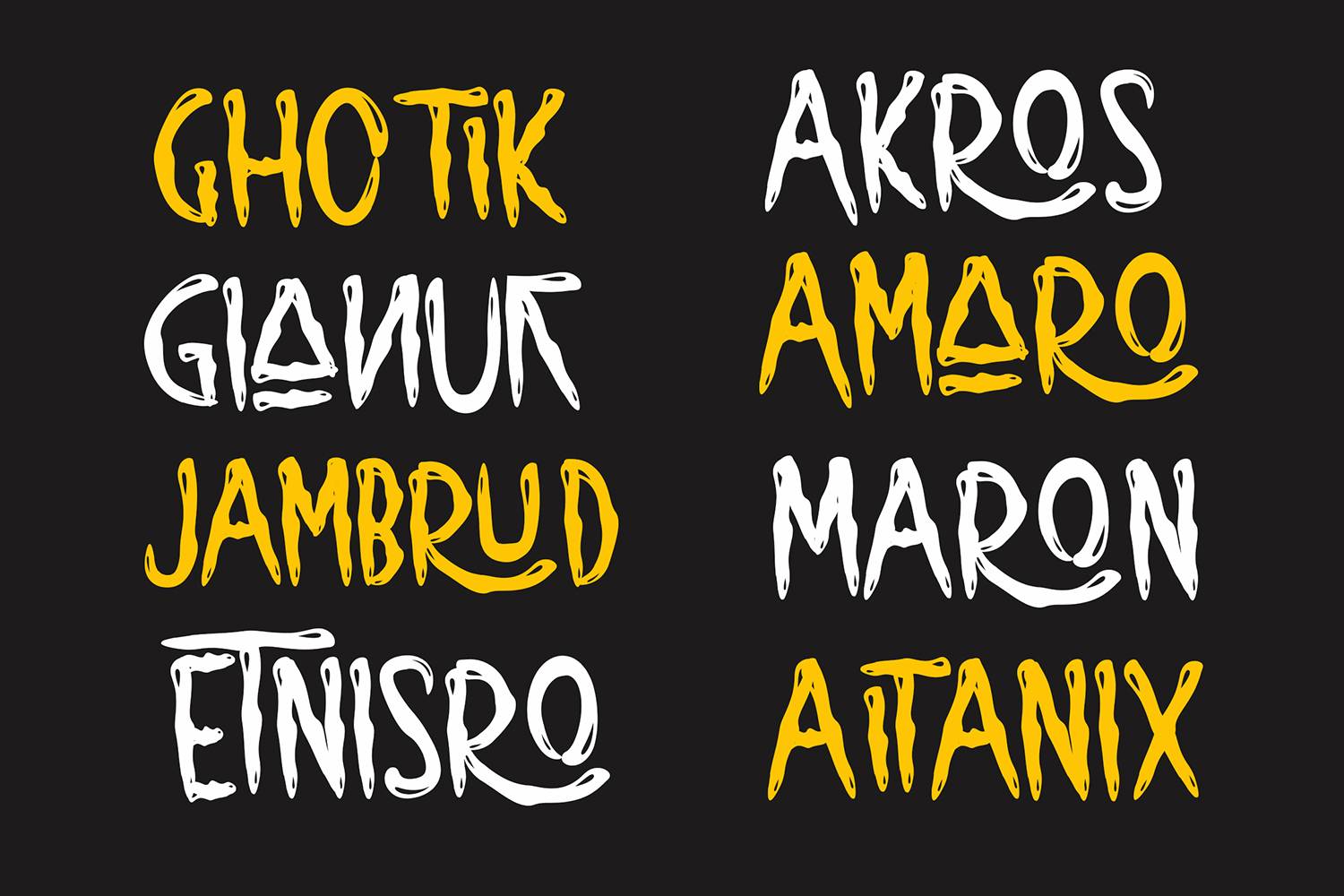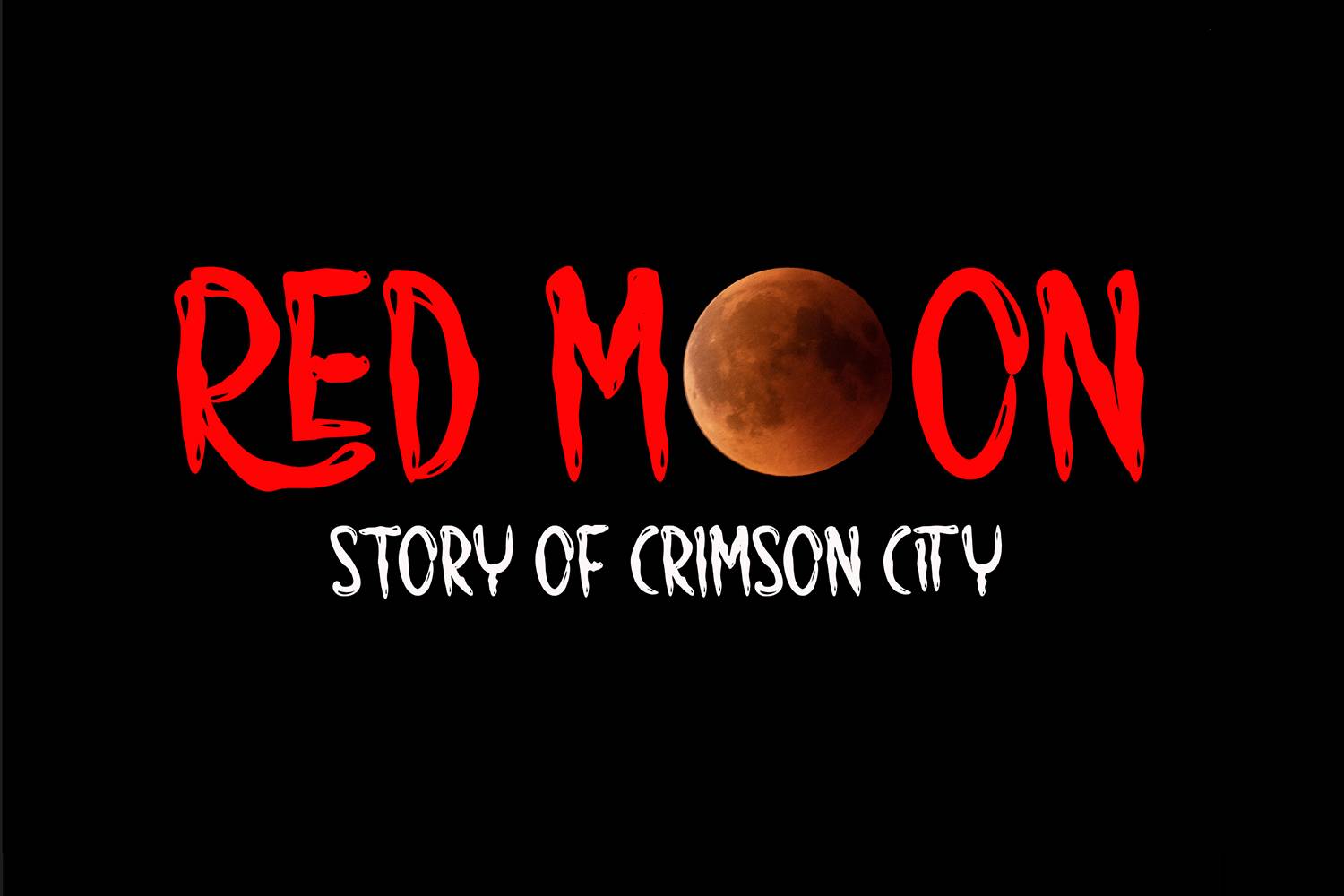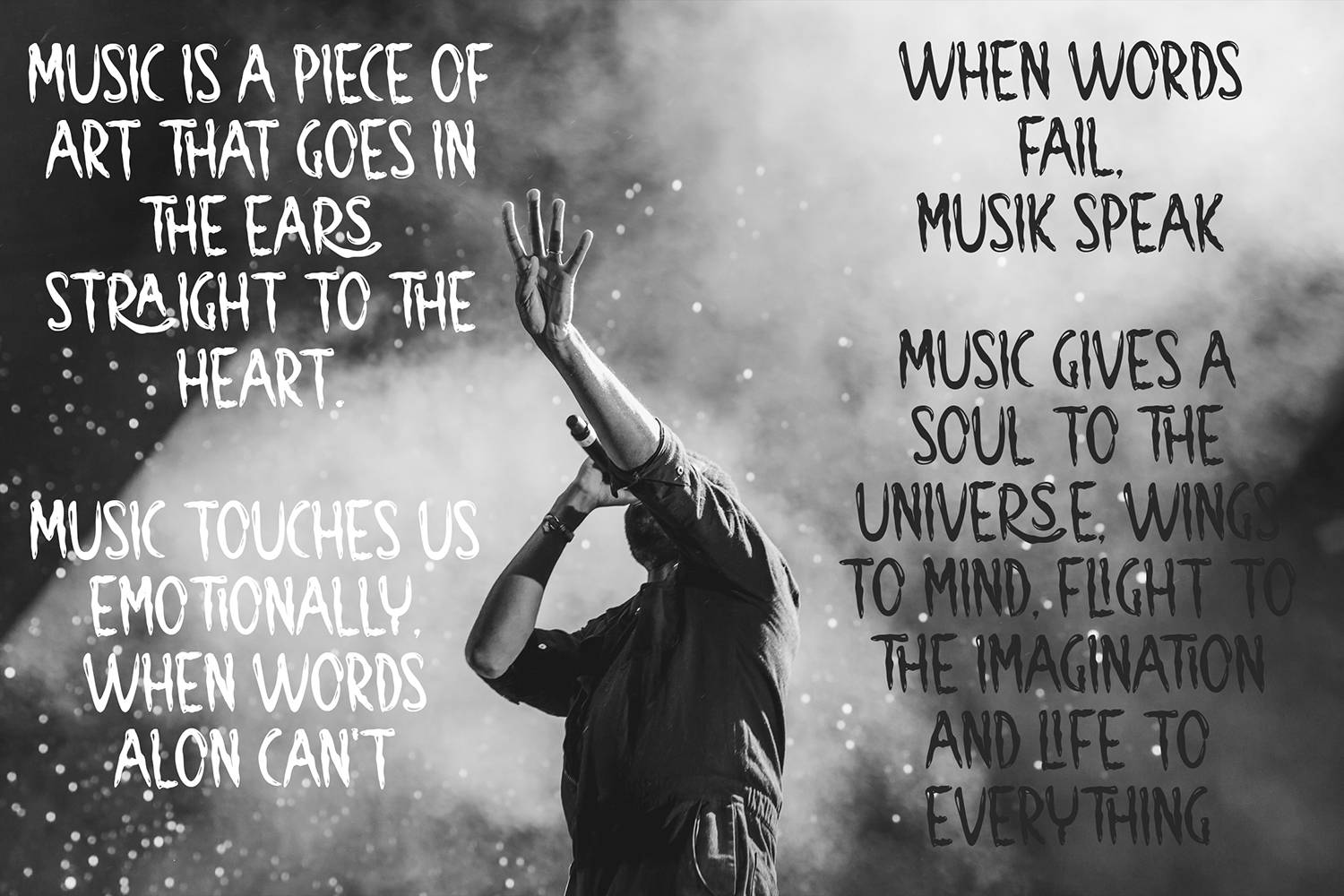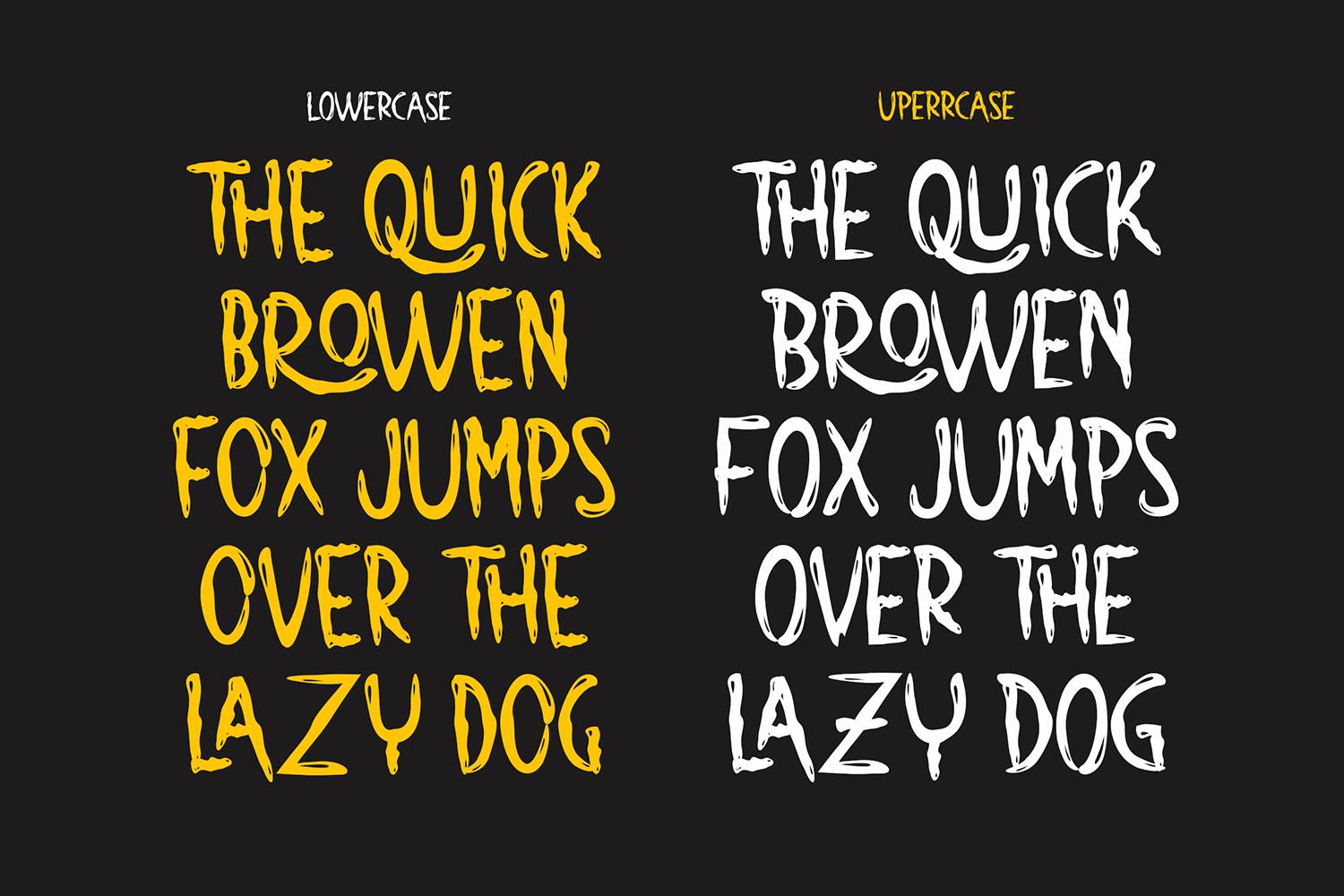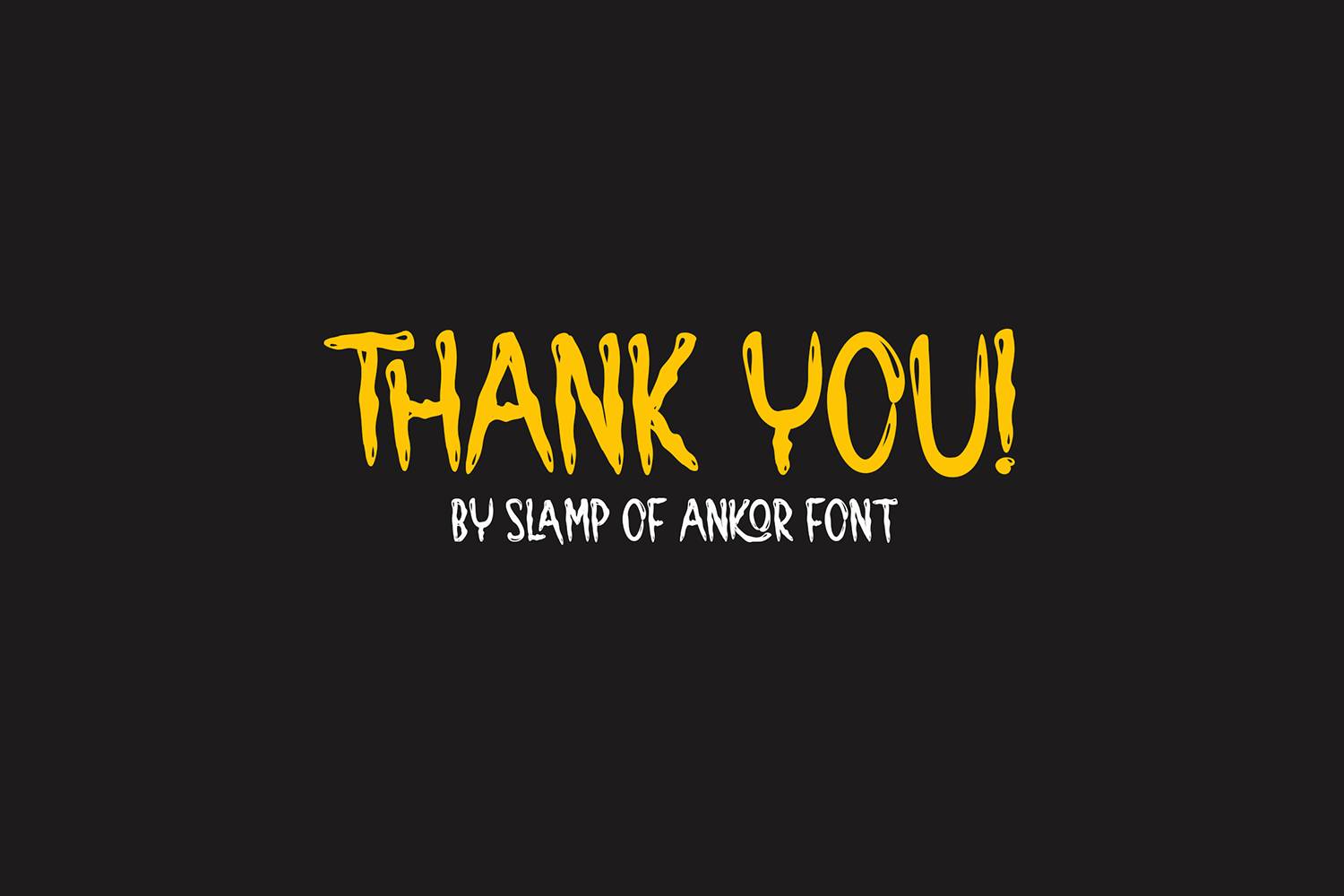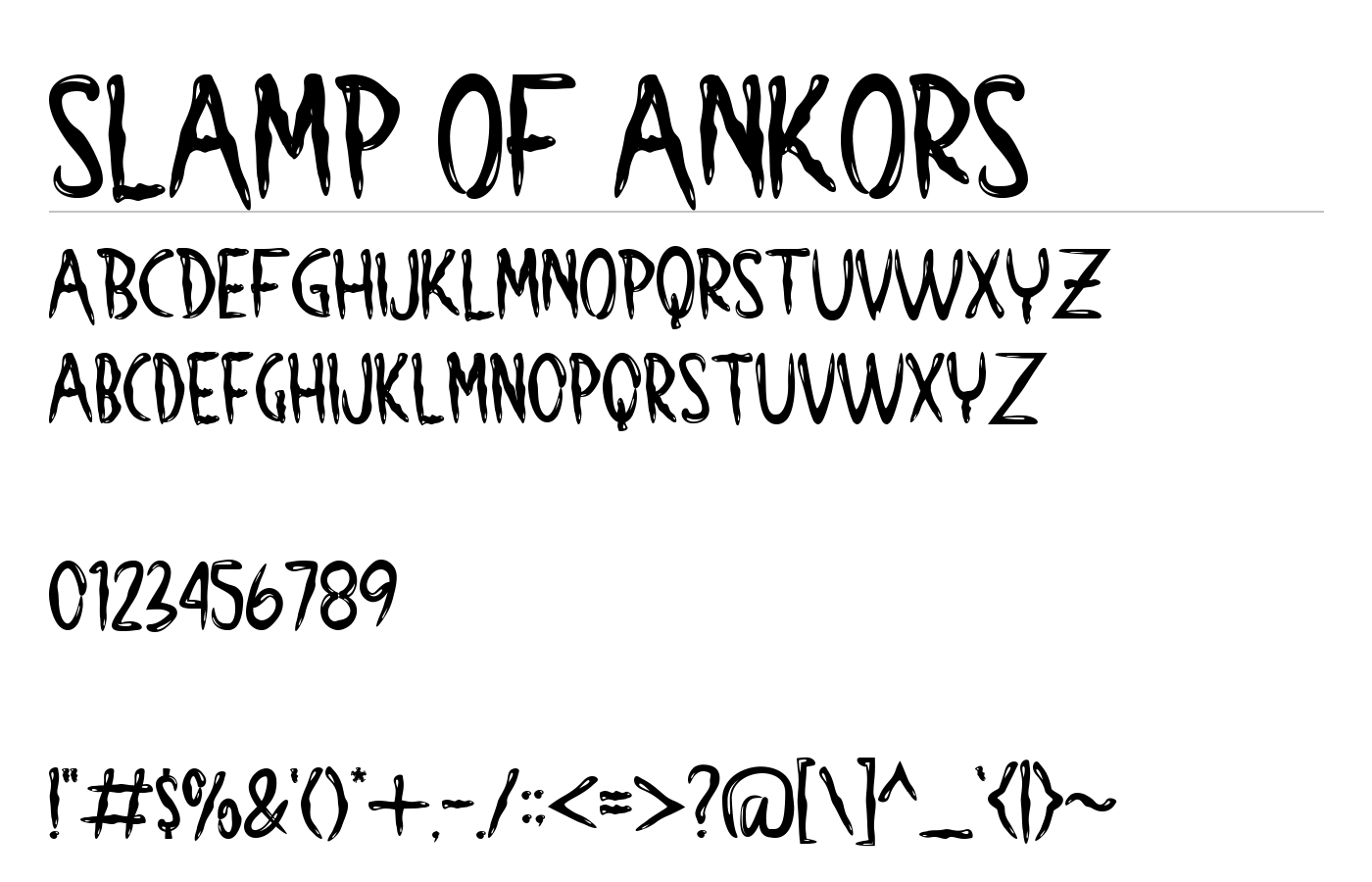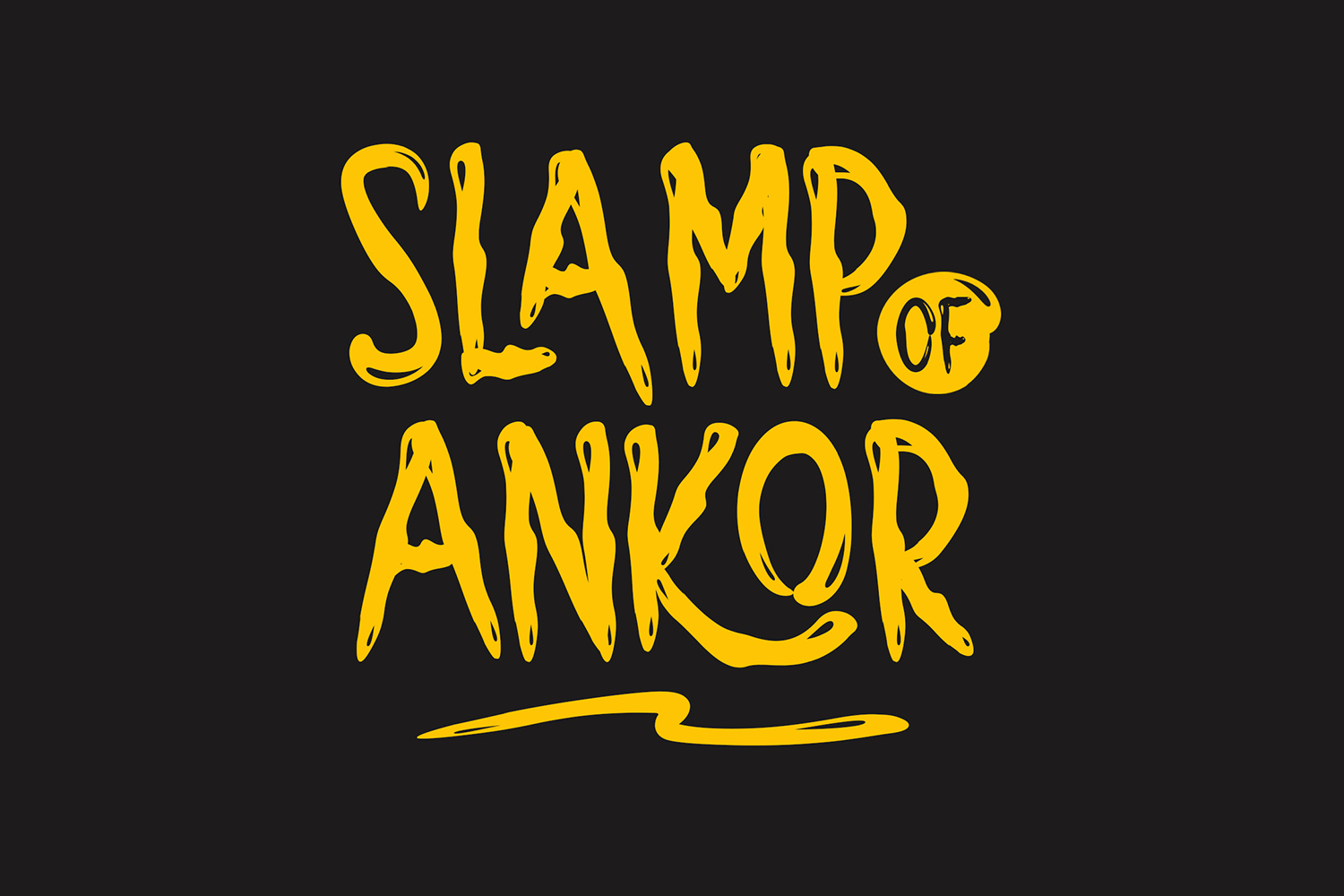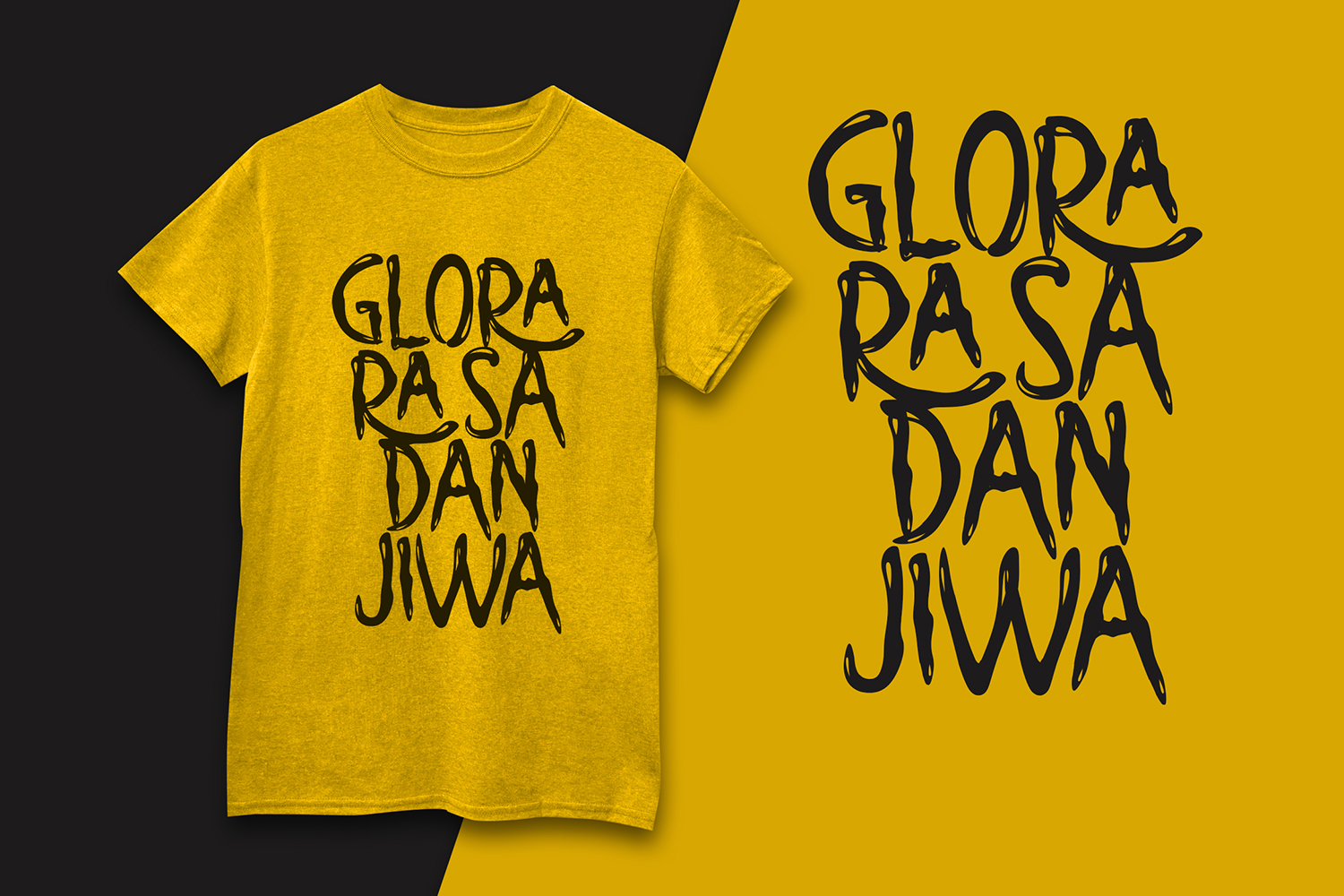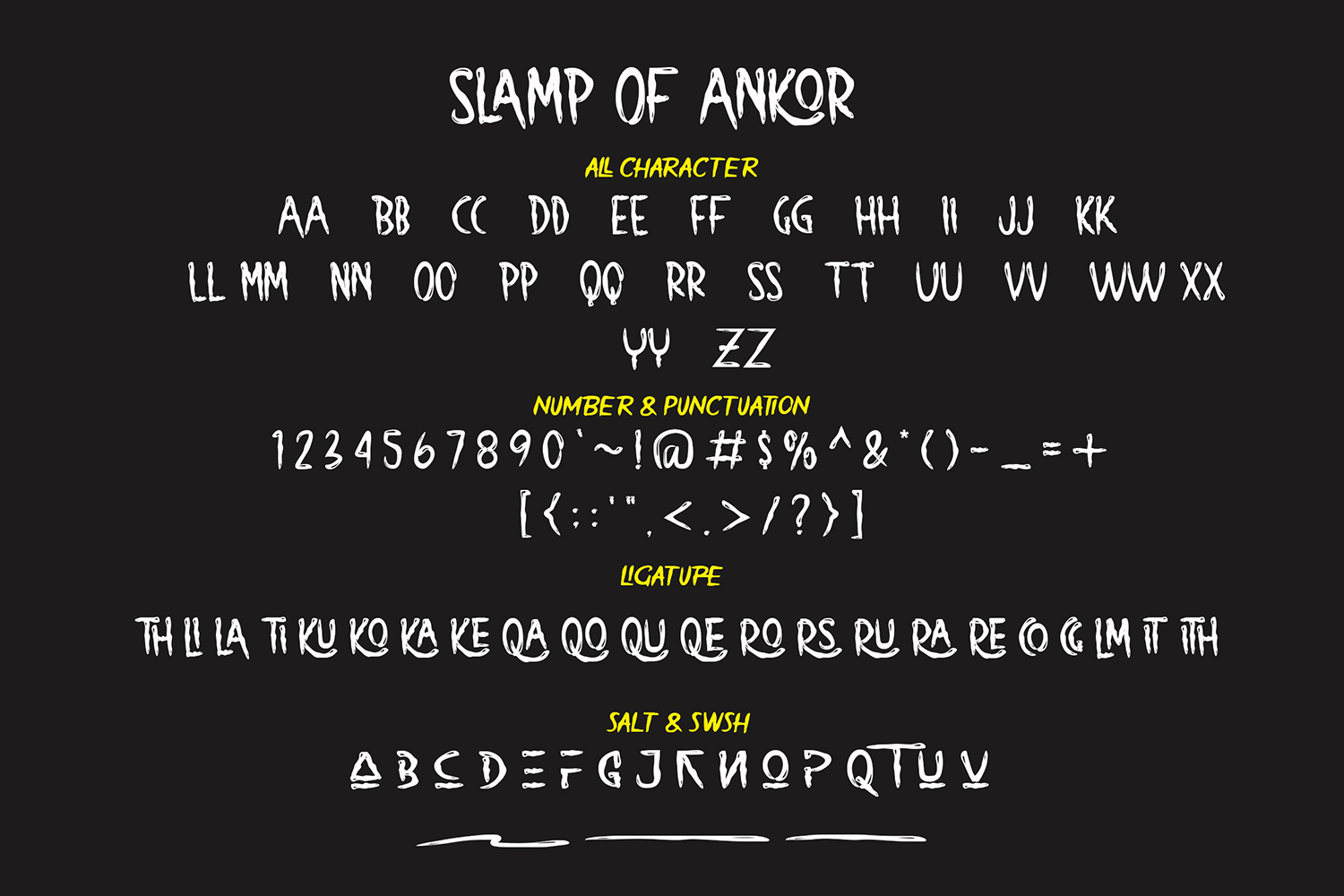
Slamp of Ankor is a bold, playful display font with a hand-drawn, slightly irregular style that adds a quirky and energetic vibe. Its tall, narrow letterforms feature rough edges and unique details, making it perfect for eye-catching headlines, posters, or branding that aims to stand out with a fun, informal personality. This font works well in creative projects where a casual, artistic touch is desired.
Slamp of Ankor
About Slamp of Ankor
| Font family | Slamp of Ankor |
| Designer | REPI HILMANA |